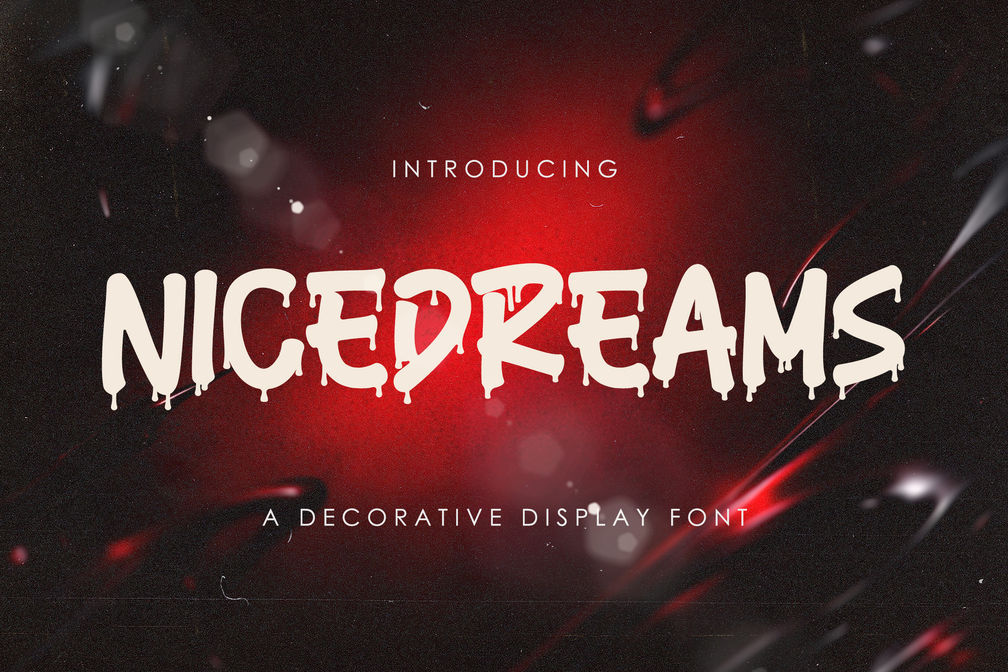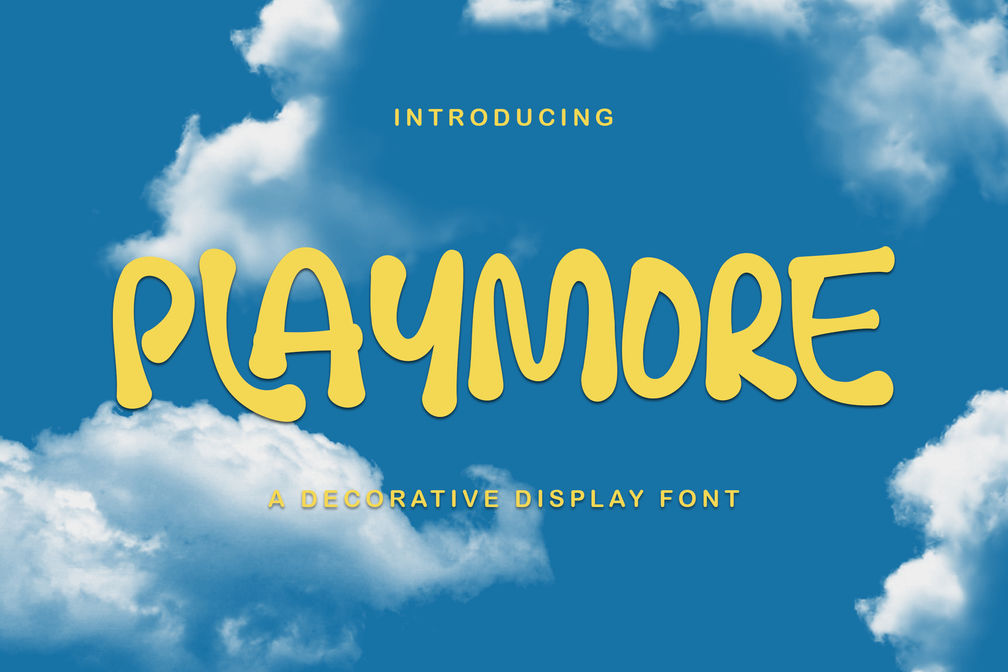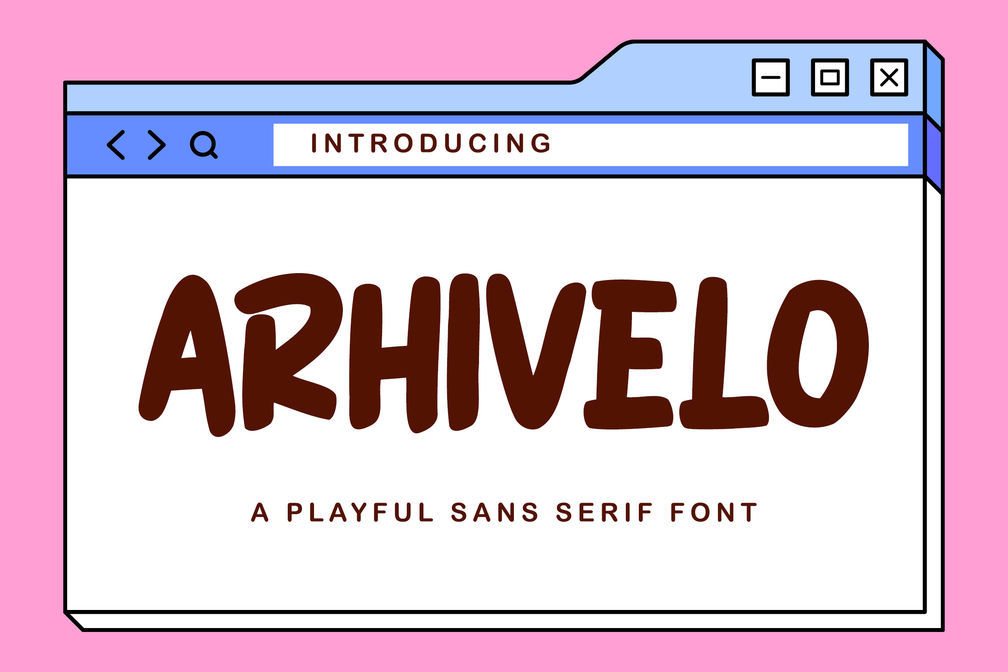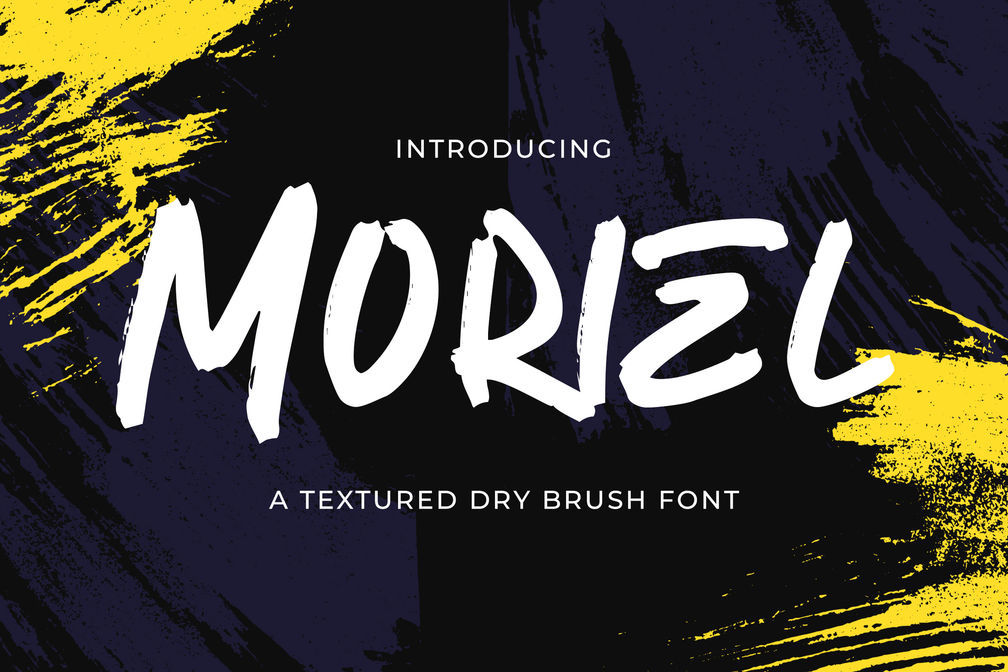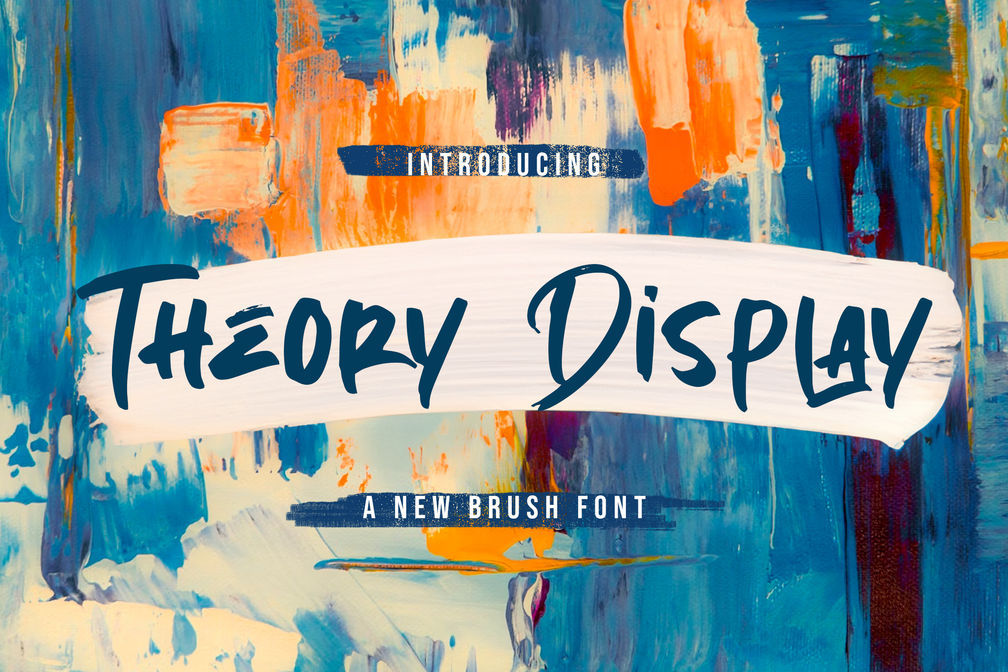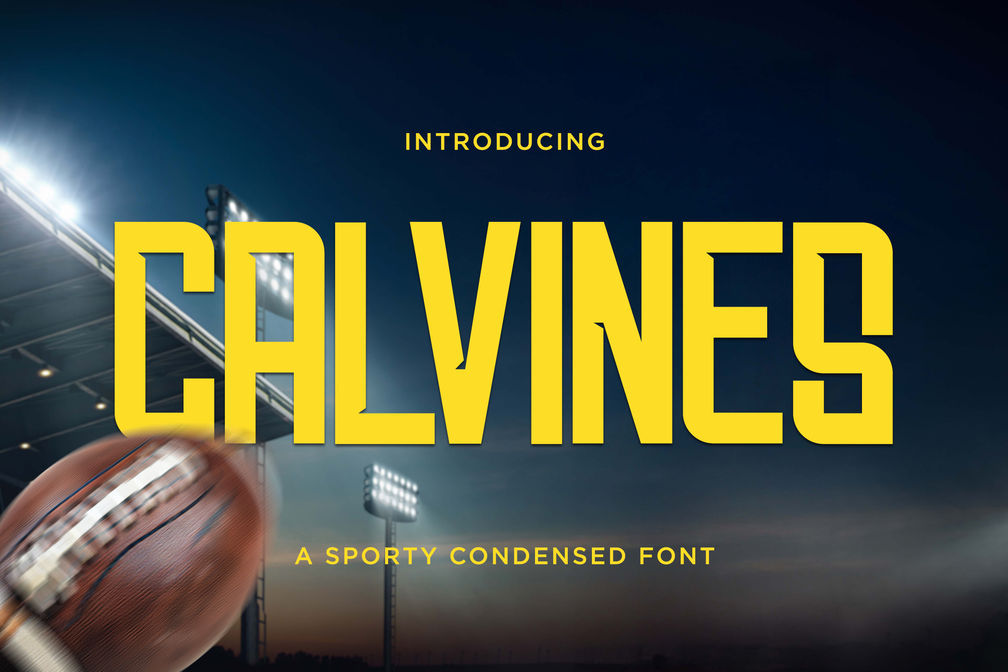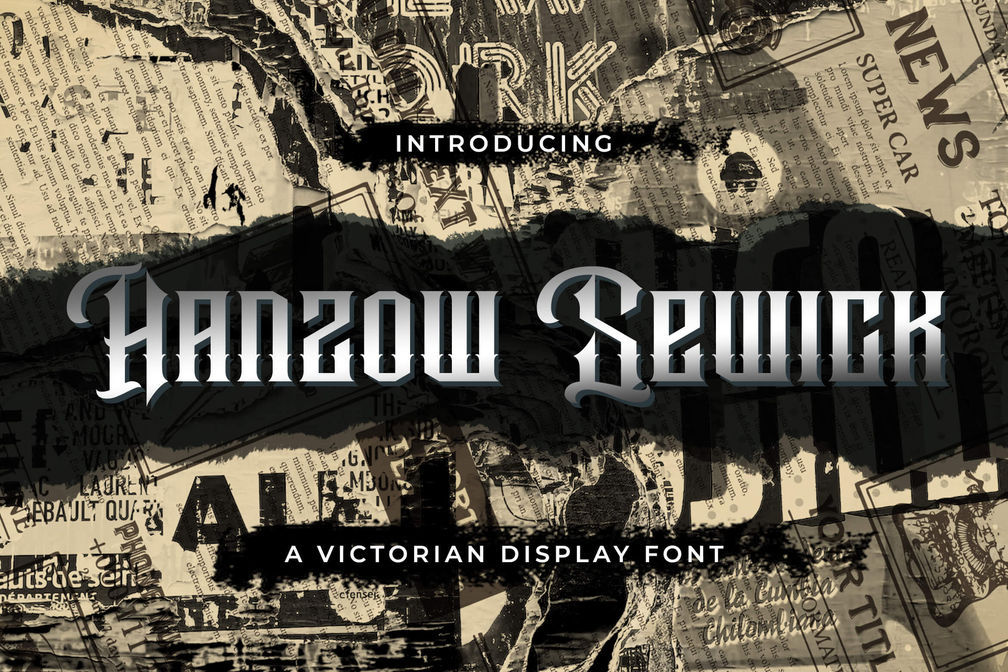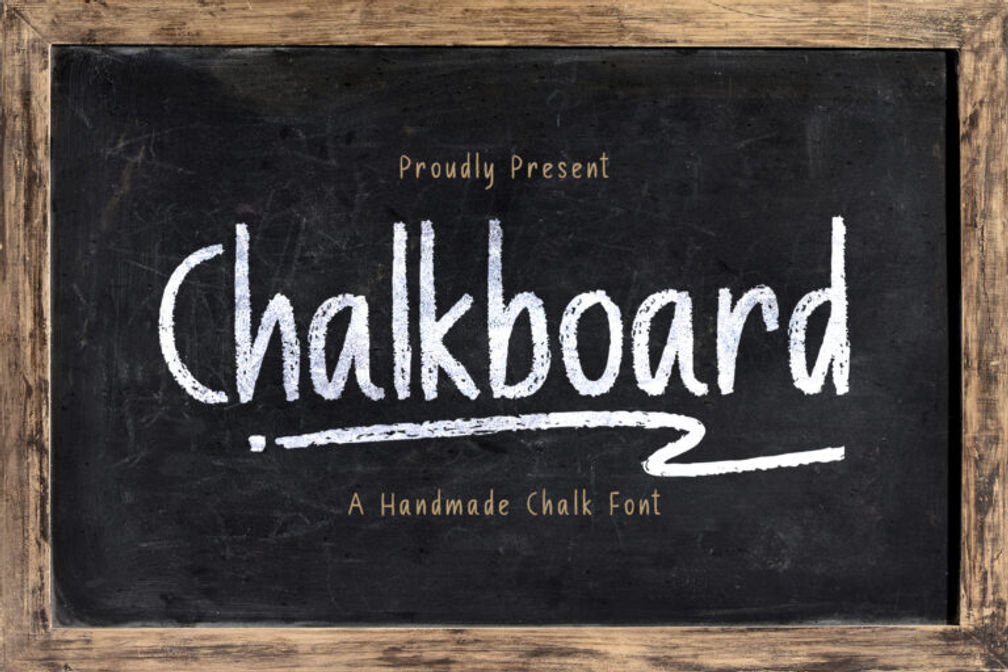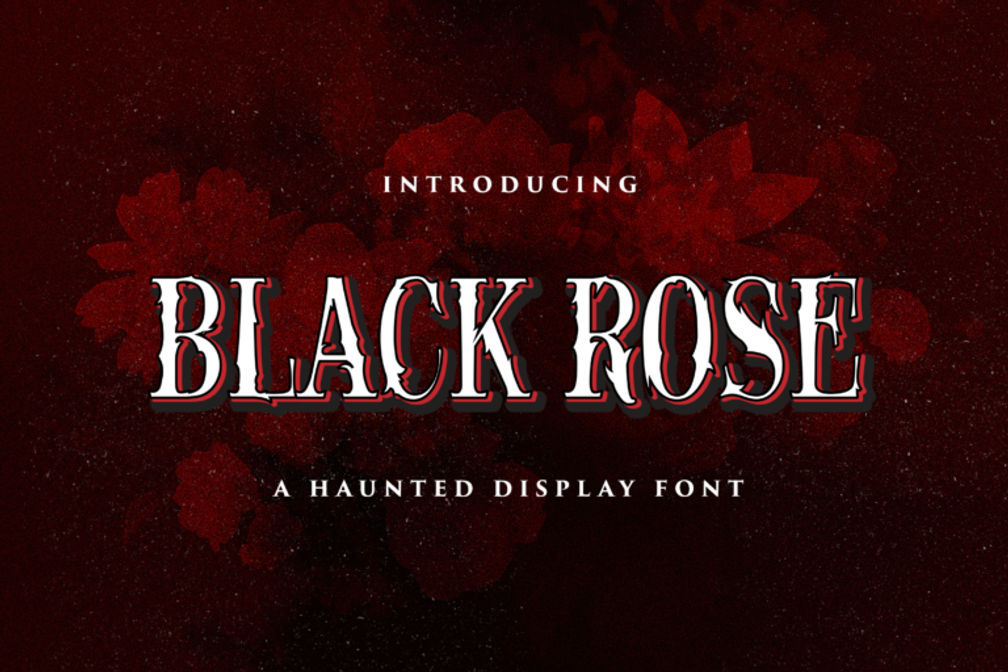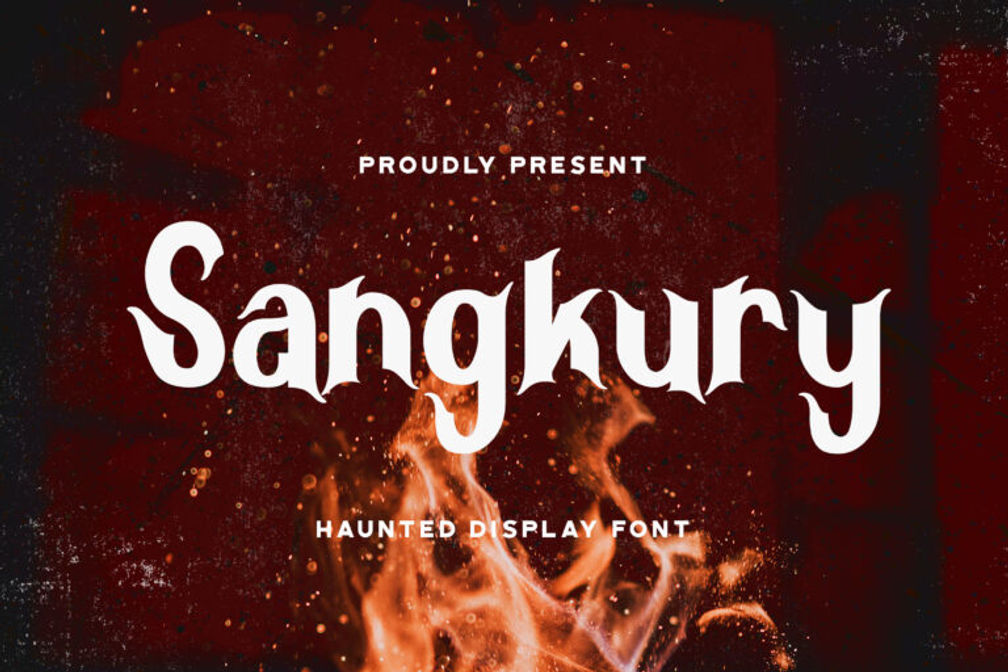
25 Best Modern Fonts for Animated Projects
In animation, typography isn’t just static; it moves, reacts, and tells a story. That’s why choosing the best modern fonts for animated projects is key to creating visuals that feel dynamic and engaging. With the right typeface, even simple animations can feel more expressive and impactful.
Key takeaways
• Choosing the right fonts is essential in animation, as it enhances readability, supports movement, and strengthens the overall visual impact.
• The animation industry spans film, gaming, education, advertising, and digital media, offering a wide range of creative opportunities.
• Modern fonts designed for animation can improve visual consistency and help create more engaging, professional, and distinctive results.
25 Best Modern Fonts for Animated Projects
According to Artemisia College of Art and Design, the animation industry now spans films, gaming, education, advertising, and digital media. As animation continues to evolve across these fields, choosing the right typography becomes increasingly important to support both motion and storytelling.
Here are the best modern fonts for animated projects to help bring your visuals to life.
1. Nicedreams
Nicedreams is a bold, playful drip-style decorative font with fluid, eye-catching forms, ideal for adding dynamic to the animation project.
2. Playmore
Playmore is a cheerful decorative display font with soft, rounded forms that bring an imaginative feel to logos, branding, packaging, and other creative typography.
3. Arhivelo
Arhivelo is a playful display typeface characterized by bold, rounded shapes that add a cheerful feel to modern graphic design.
4. Moriel
Moriel is a textured handbrush display font with flowing brush-pen strokes, delivering an organic feel and smooth, expressive motion for titles and transitions.
5. Theory Display
Theory Display is a textured handbrush font with flowing, brush-pen strokes that create a stylish look for creative designs.
6. Calvines
Calvines is a sporty, condensed sans serif with tall, narrow forms that deliver a strong, modern, and energetic look, the best font for animation in dynamic and high-impact designs.
7. Hanzow Sewick
Hanzow Sewick is a vintage-inspired decorative font with elegant Victorian details and tattoo-style influence.
8. Chalk Board
Chalk Board is a handmade, textured brush font inspired by chalk strokes, offering a sincere and natural feel that adds authentic character to any design.
9. Black Rose
Black Rose is a unique display font with a horror-inspired style, making it perfect for movies, posters, Halloween designs, and other dark-themed animation projects.
10. Candy Yefumy
Candy Yefumy is a cute and playful font that brings a joyful, eye-catching charm to creative designs, making them stand out with a fun and lively animation theme.
11. Sangkury
Sangkury is a distinctive font with a spooky, Halloween-inspired style, making it ideal for movies, posters, flyers, and themed animation. Its dramatic shapes enhance animated sequences with a bold, atmospheric presence.
12. Blood Bold
The Blood Bold font is perfect for casual and children-related Halloween animation projects
13. Maverik
Maverik is a dry brush font defined by textured, hand-painted strokes that bring a bold and energetic expression.
14. Pisang Keju
Pisang Keju is a fun font with a fresh and colorful tone, perfect for children’s animation projects, design for children, and other projects
15. Angel Wish
Angel Wish Font is an authentic and daring blackletter typeface that adds a bold edge to creative projects.
16. Pakuintho
Pakuintho is a playful animated font with a colorful, bubbly style, making it a great choice for lively visuals.
17. Bustery
As one of the best modern fonts for animated projects, Bustery stands out with its bold horror style and intricate decorative elements, making it ideal for dark, atmospheric animation.
18. Lionel Virgi
Lionel Virgi is a fun and playful display font with clean edges, perfect for children’s projects and school-themed designs. In animated projects, it adds a cheerful, lively tone that keeps visuals engaging and easy to follow.
19. Sugano